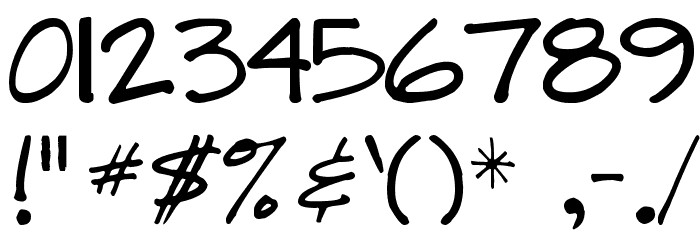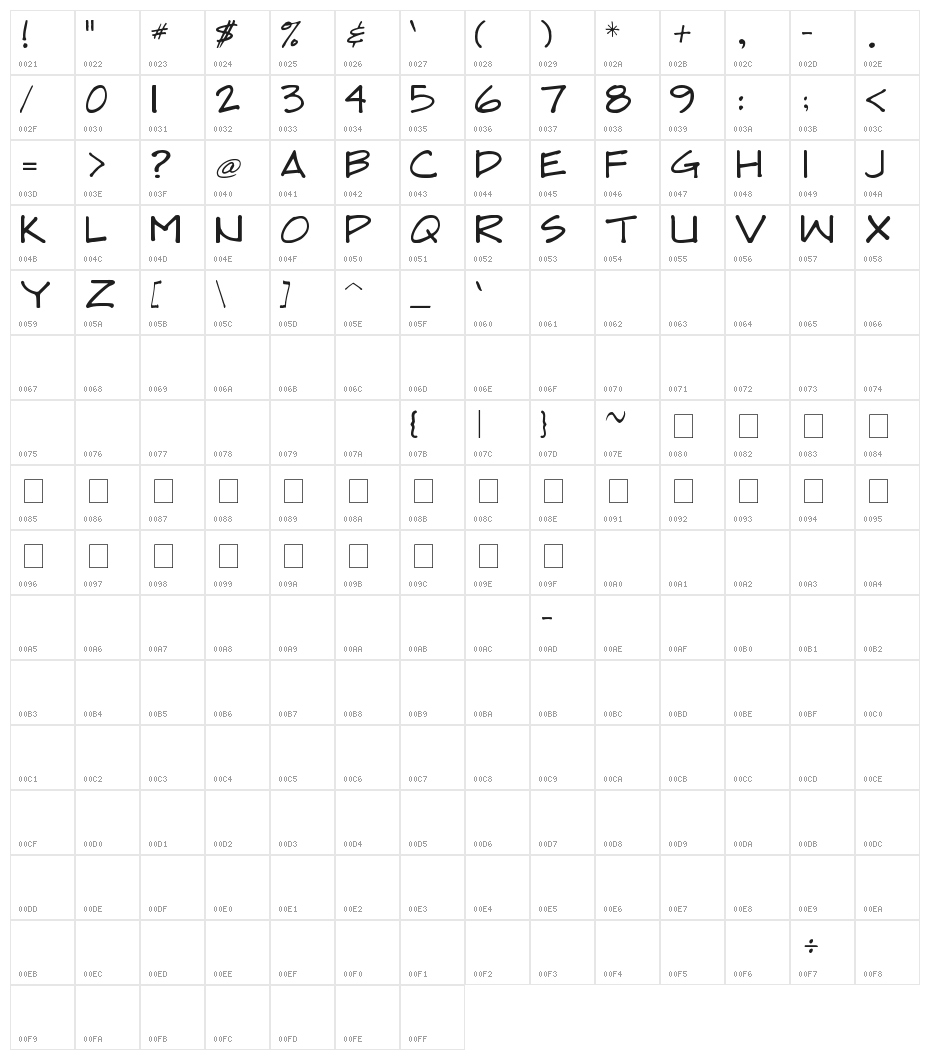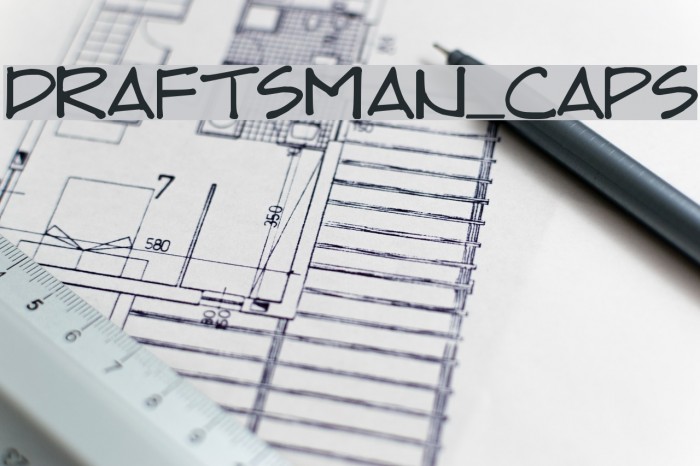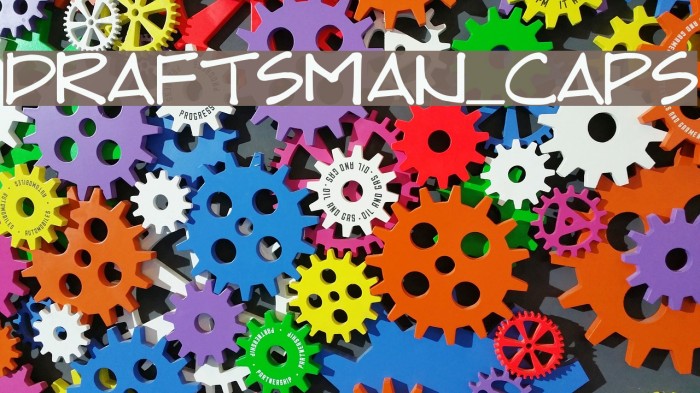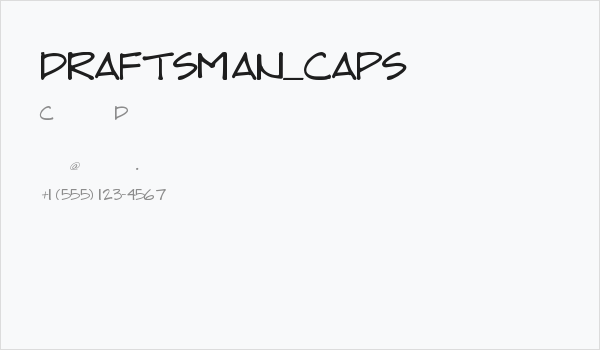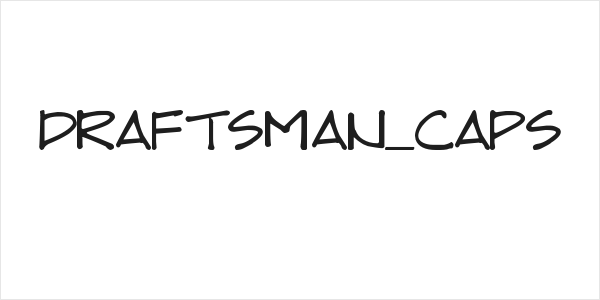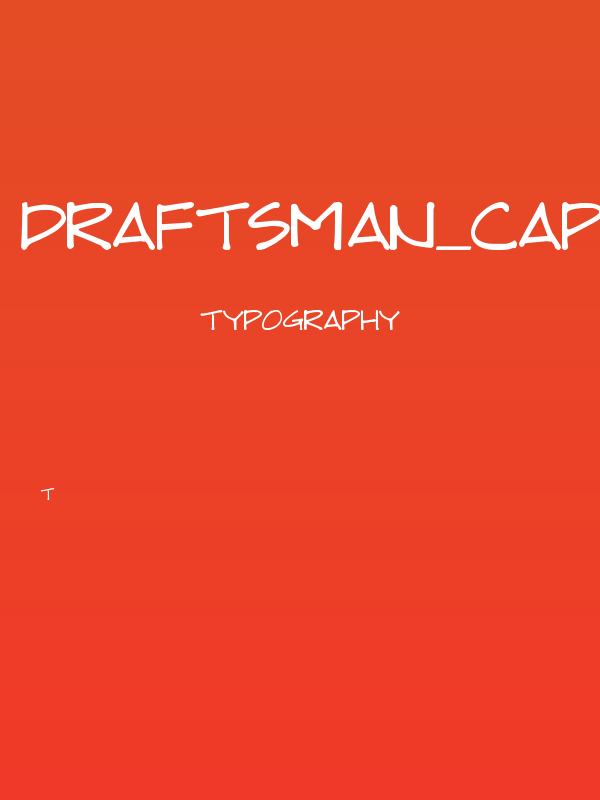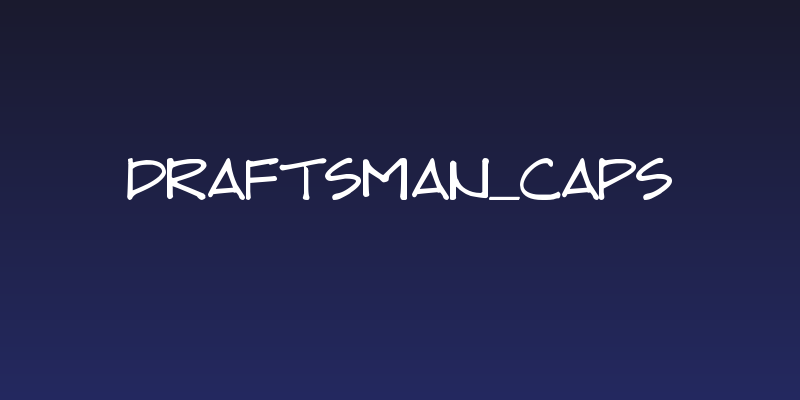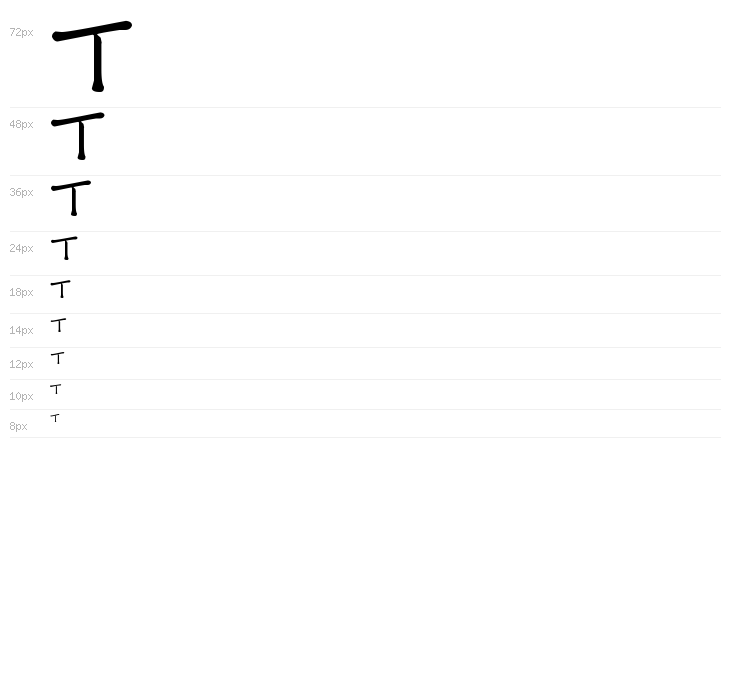
DRAFTSMAN_CAPS Font
DRAFTSMAN_CAPS Description
This font exudes a casual, handwritten style, reminiscent of architectural drafts and sketches. The uppercase letters are bold and slightly slanted, giving a dynamic and energetic feel. The numbers and special characters maintain the same playful, yet structured appearance, making them easily readable. The strokes are consistent in width, providing a uniform look across all characters. This font is perfect for projects that require a personal touch while maintaining clarity and professionalism.
| Overall Style | Casual, Energetic |
| Proposed Projects | Ideal for architectural sketches, creative projects, informal presentations, and personal branding. |